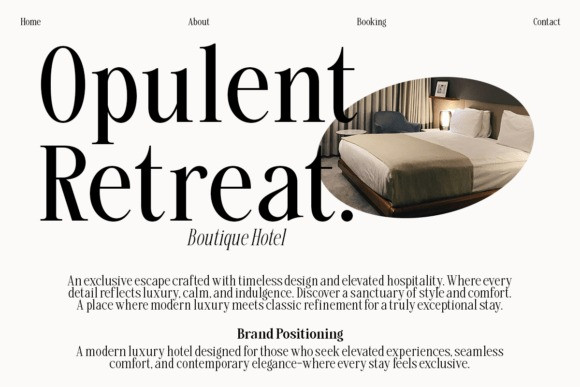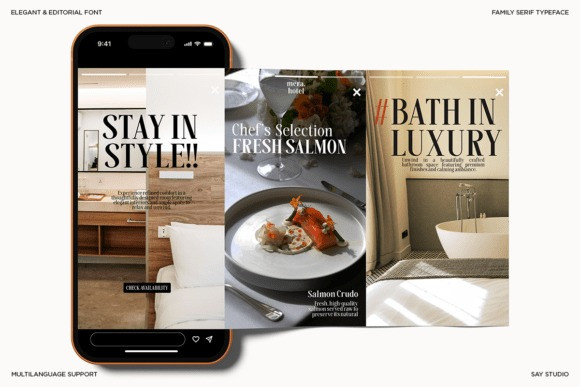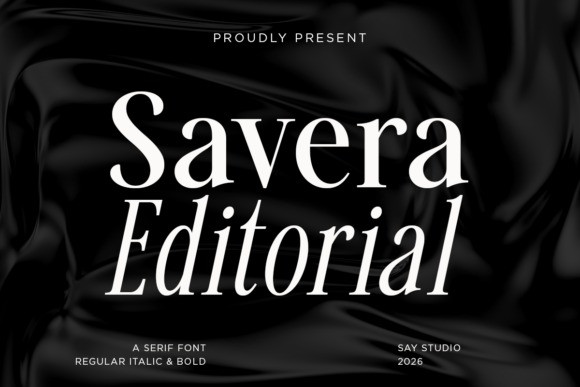
Savera Editorial Font
Savera Editorial Font is a refined serif typeface crafted for modern editorial elegance. Perfect for magazines, fashion branding, high-end packaging, and editorial layouts, Savera Editorial offers a polished and professional aesthetic.Whether used for bold statements or delicate text, it ensures consistency and elegance across all design applications, making it a powerful choice for modern creative projects.